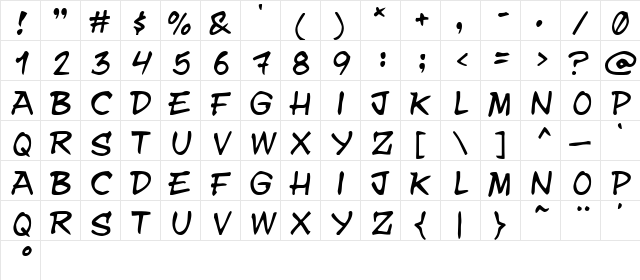
y.n.w.u.a.y Regular
Version: 2 - You never wash up after yourself
Design Context for y.n.w.u.a.y
y.n.w.u.a.y is a composed and adaptable typeface that performs quietly and consistently across a wide range of design contexts.